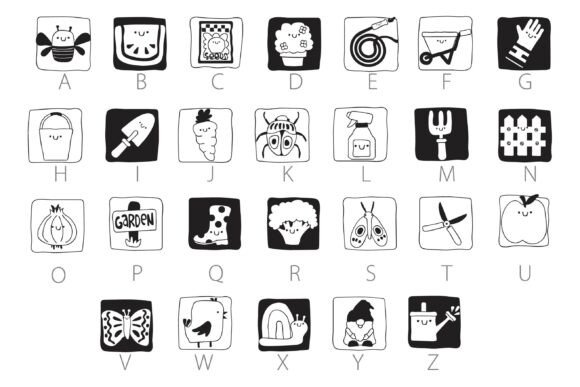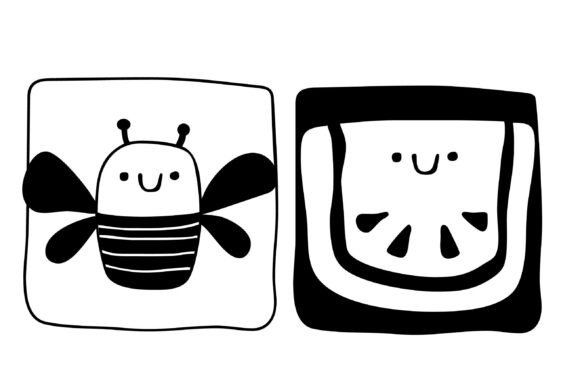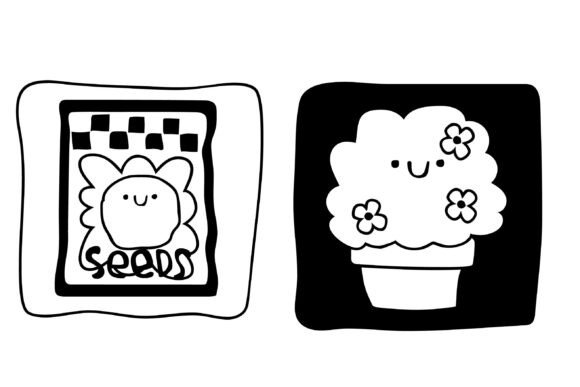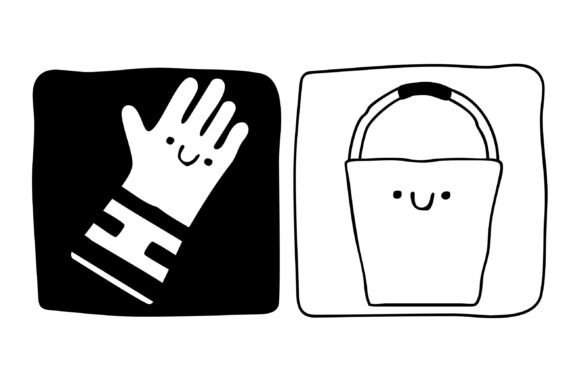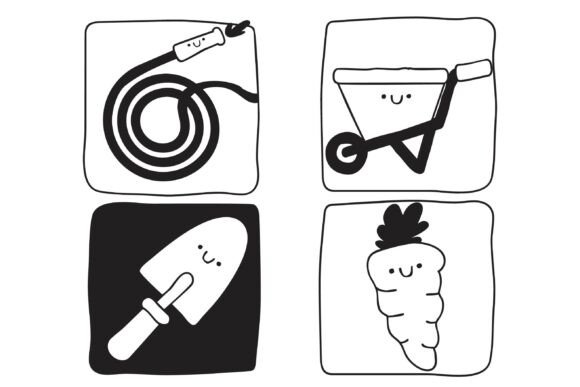
Introduction to Iconic Garden Dingbats Font
As you sit amidst the serene beauty of your backyard garden, surrounded by vibrant flowers and lush greenery, the creative juices start flowing. You’re brainstorming ideas for your next design project, and suddenly, a charming watering can with a smiley face pops into your mind. It’s moments like these that remind us of the power of creative resources to spark inspiration and bring joy to our designs.
Enter the Iconic Garden Dingbats Font, a delightful collection of hand-drawn garden icons that will elevate your design projects to the next level. This high-quality font is a game-changer for designers looking for a unique and stylish way to add visual interest to their work.
Key Features of Iconic Garden Dingbats Font
- High-quality design resource ideal for creative projects and illustrations.
- Features a unique and charming set of garden-themed dingbats, perfect for adding a touch of whimsy to your work.
Honest Review: Iconic Garden Dingbats Font
I recently had the chance to work with the Iconic Garden Dingbats Font, and I must say it was a delightful experience. As a designer, I’m always on the lookout for high-quality design resources that can elevate my creative projects. This font definitely fits the bill.
- ✨ Unique Design: The Iconic Garden Dingbats Font features a distinctive and playful design that’s perfect for adding a touch of whimsy to your projects.
- ✨ High-Quality Graphics: The graphics are crisp and clear, with transparent backgrounds that make them easy to use and edit.
That being said, there are a few limitations to be aware of: ⚠️ Limited Character Set: While the font includes a wide range of graphics, the character set is somewhat limited, which may not be ideal for longer blocks of text.
Overall, I was impressed with the Iconic Garden Dingbats Font and would definitely recommend it to designers looking for a unique and high-quality design resource. Whether you’re working on a creative project or just need a fun way to add some visual interest, this font is sure to deliver.
To get the most out of the Iconic Garden Dingbats Font, use it in combination with other design elements, such as icons and graphics. This will help to create a cohesive and visually appealing design for your creative project. Additionally, experiment with different font sizes and styles to add depth and interest to your design.
The Iconic Garden Dingbats Font is a versatile design resource that can be used for a variety of creative projects. Some common use cases include:
- Presentation slides
- Document headers